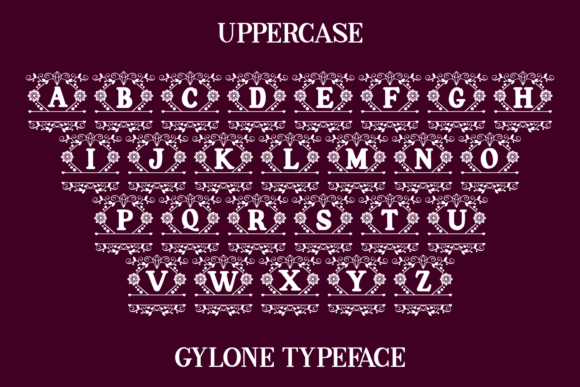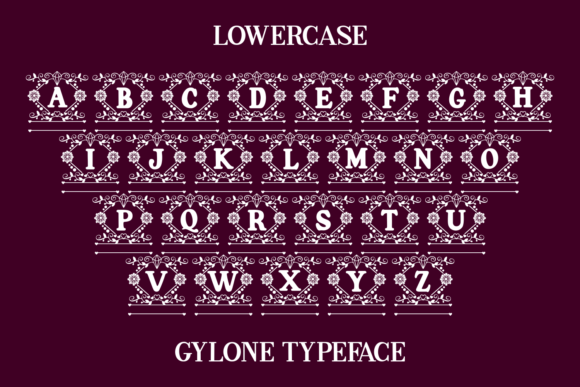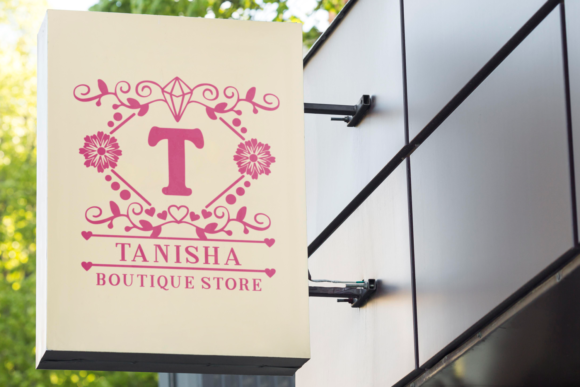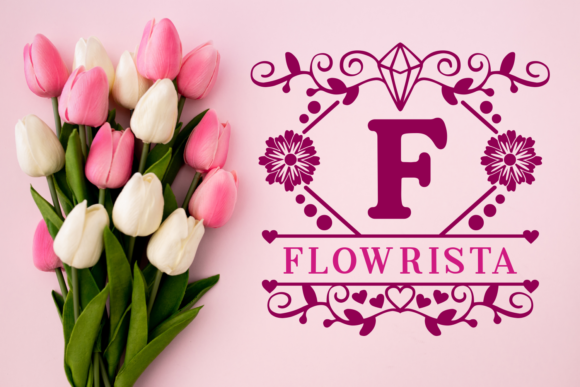
Introduction to Gylone Font
Gylone is a distinct and versatile decorative font.
It will add elegance and class to any of your design projects This font can be used to write various kinds of products according to the aspect of each need.
Key Features of Gylone Font
Why Choose Gylone Font?
Gylone Font offers exceptional quality and versatility, making it a valuable addition to your design toolkit. Whether you’re creating for personal projects or commercial use, Gylone Font delivers professional results.